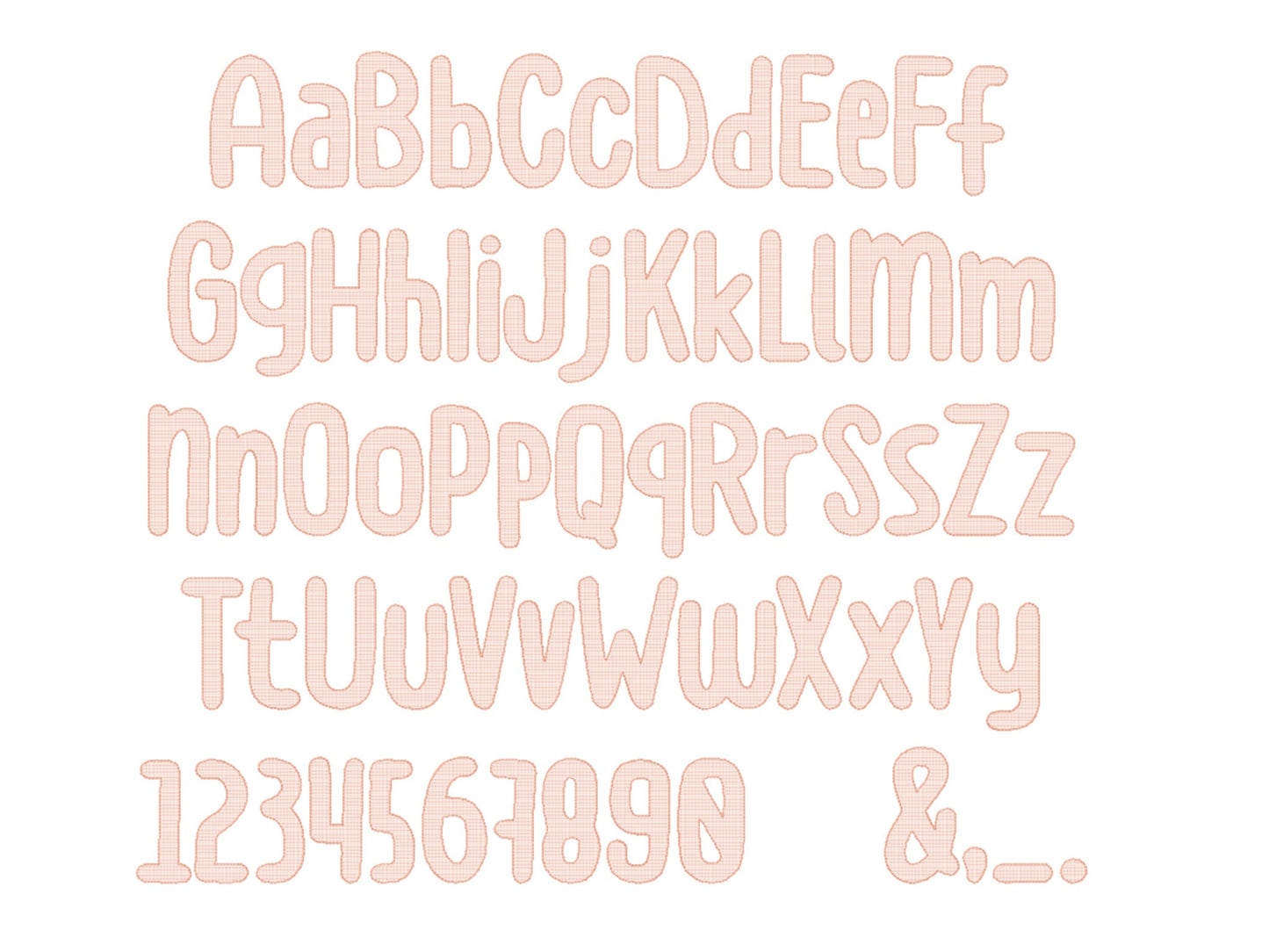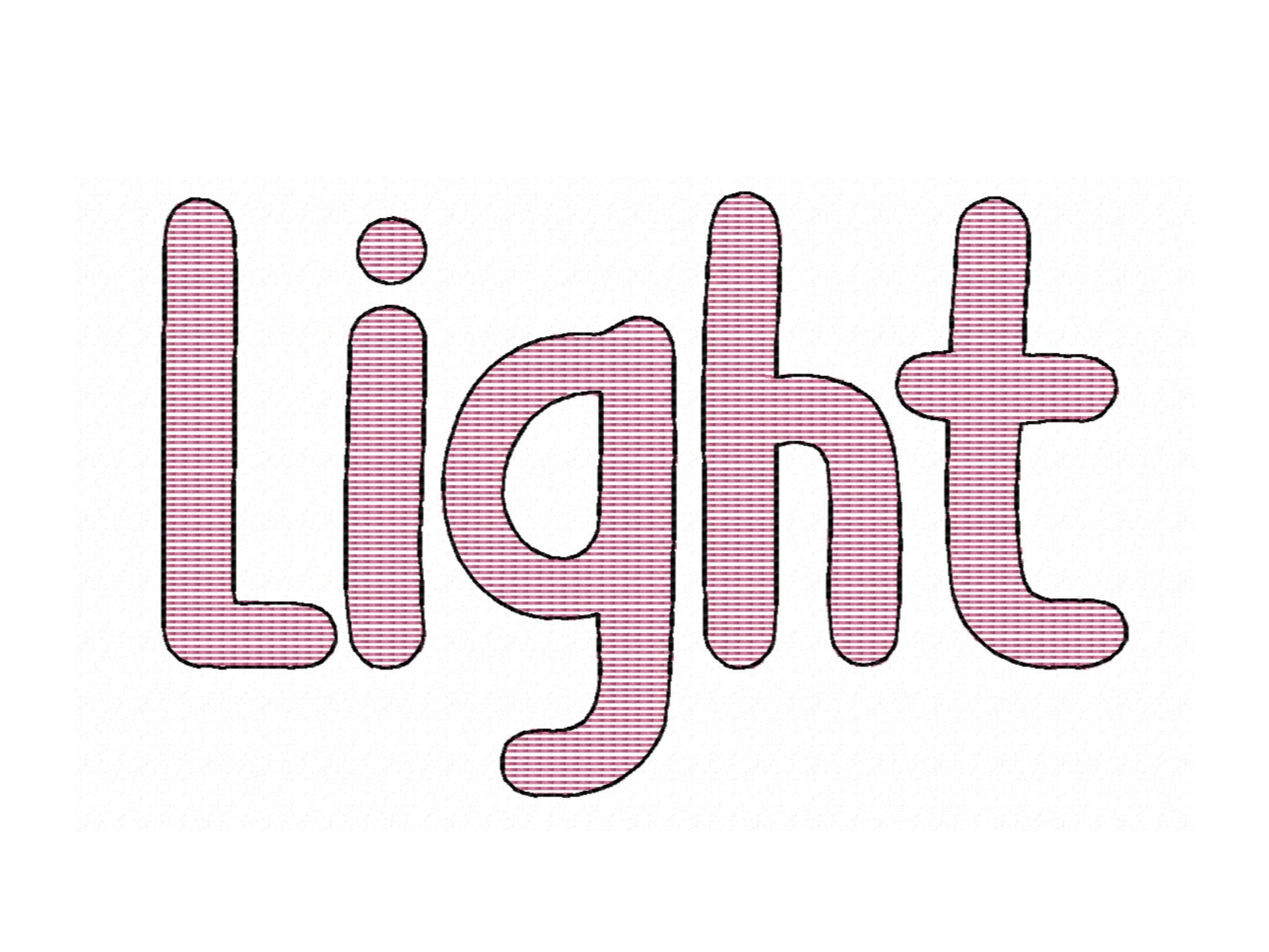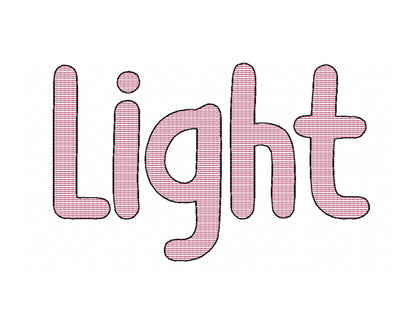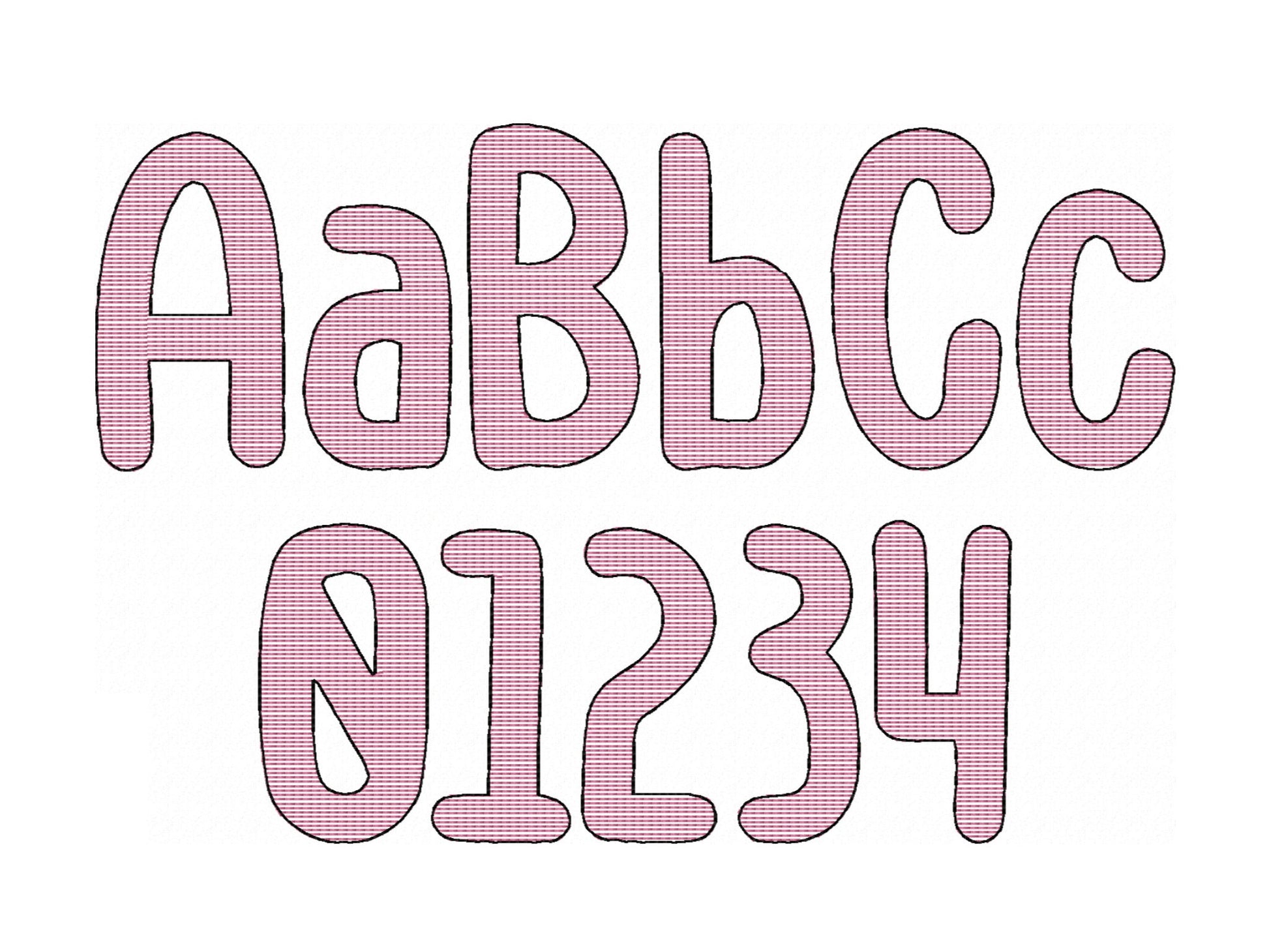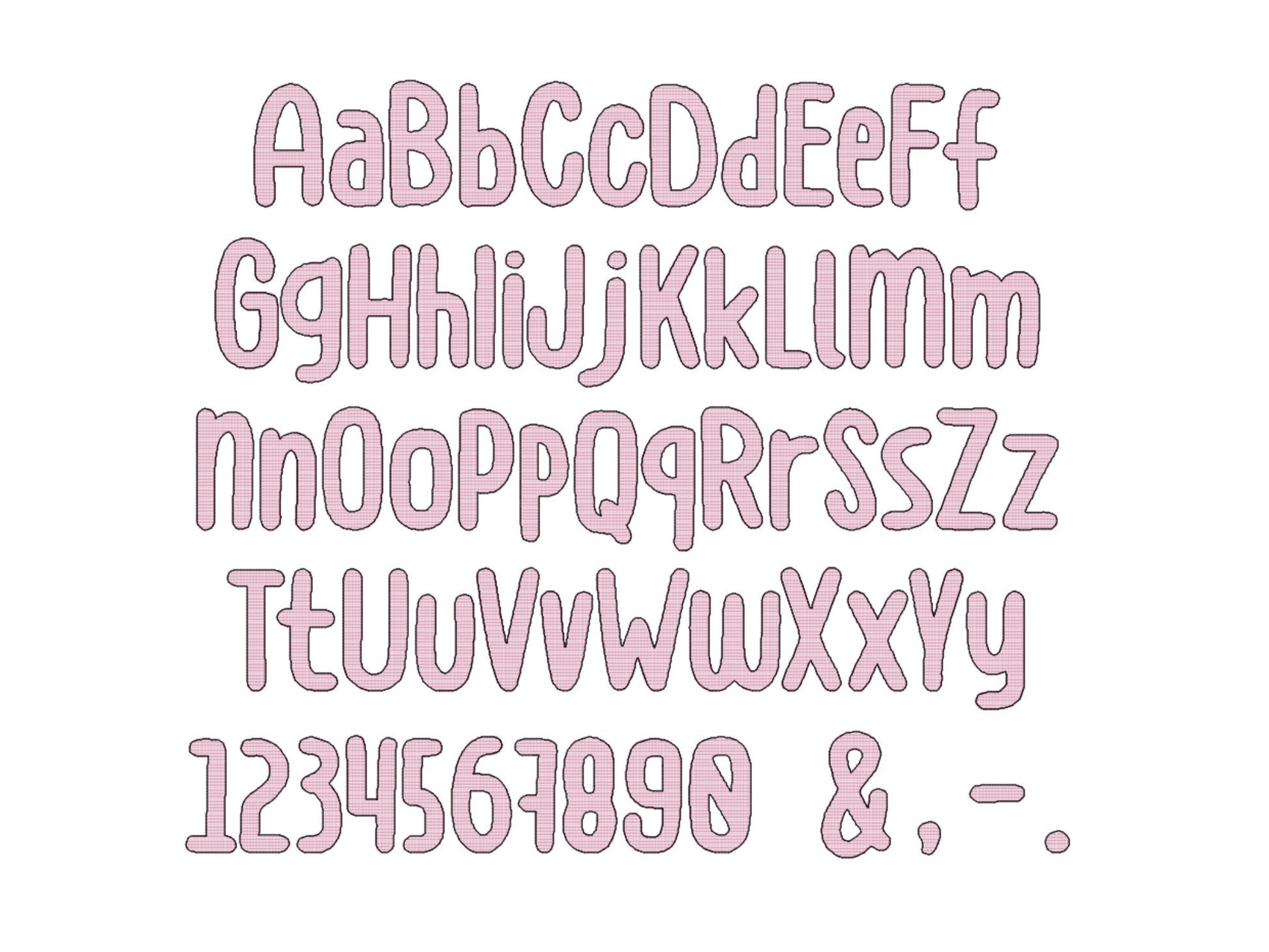
Light Stitch Kids Font
Or click to open the linkA light fill stitch kids' font that lets the fabric show through, for names and monograms on shirts, bags and pillows.
Light, open fill stitching. Uppercase and lowercase letters, numbers 0 to 9 and & . , - in four sizes: 2.4, 3, 3.8 and 5 inches.
- Light fill stitch font
- Uppercase, lowercase, numbers 0 to 9, punctuation
- 4 sizes, 2.4 to 5 in